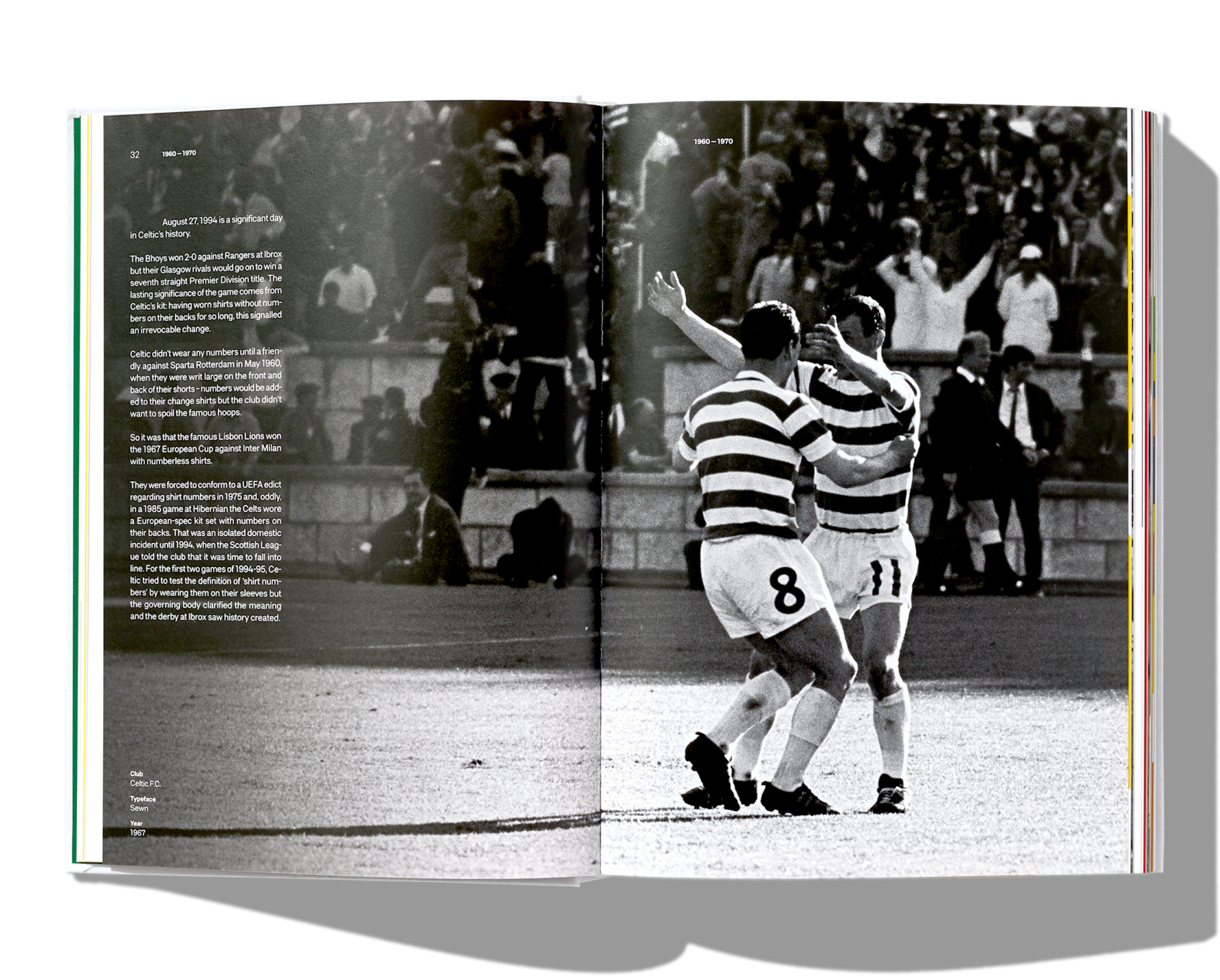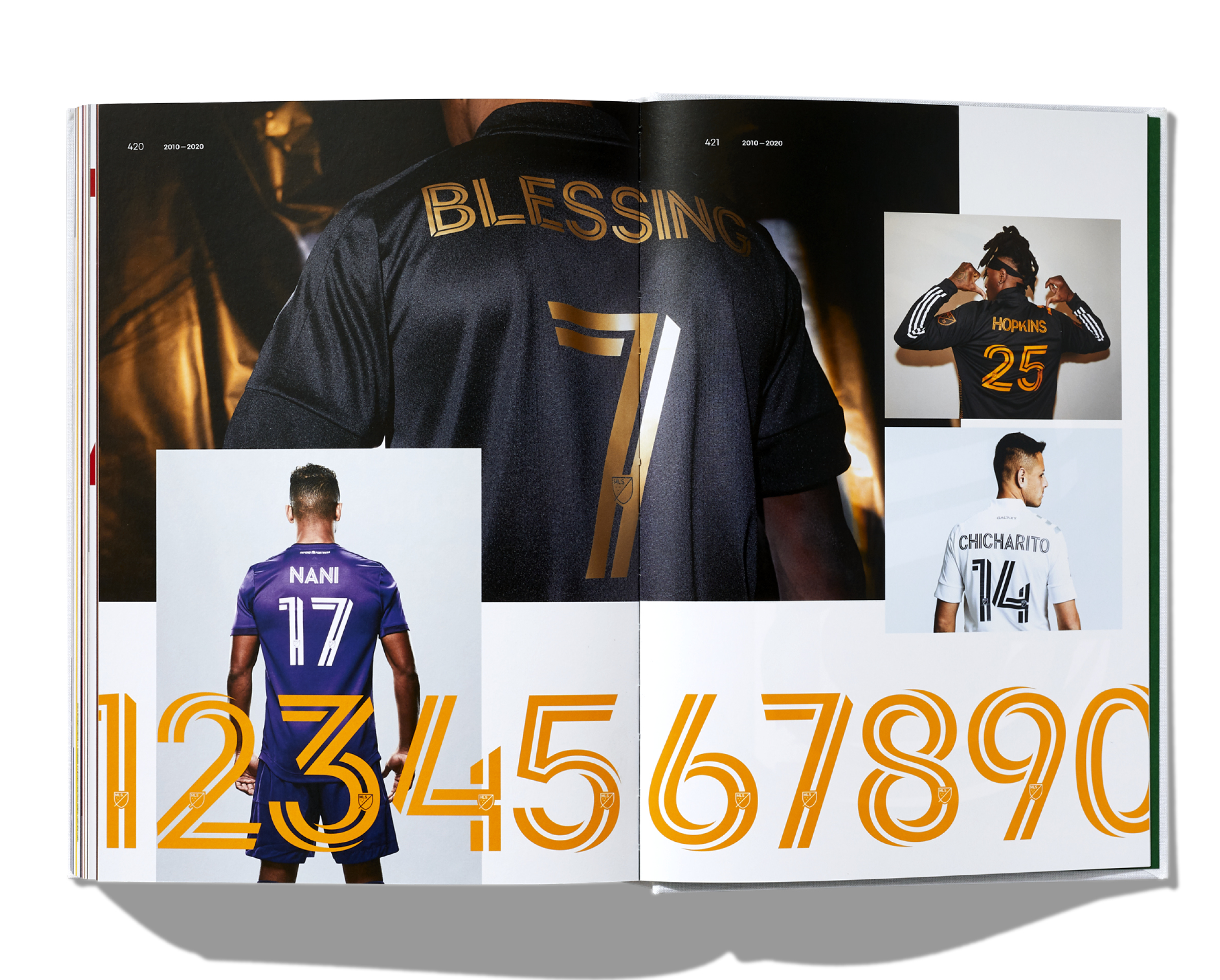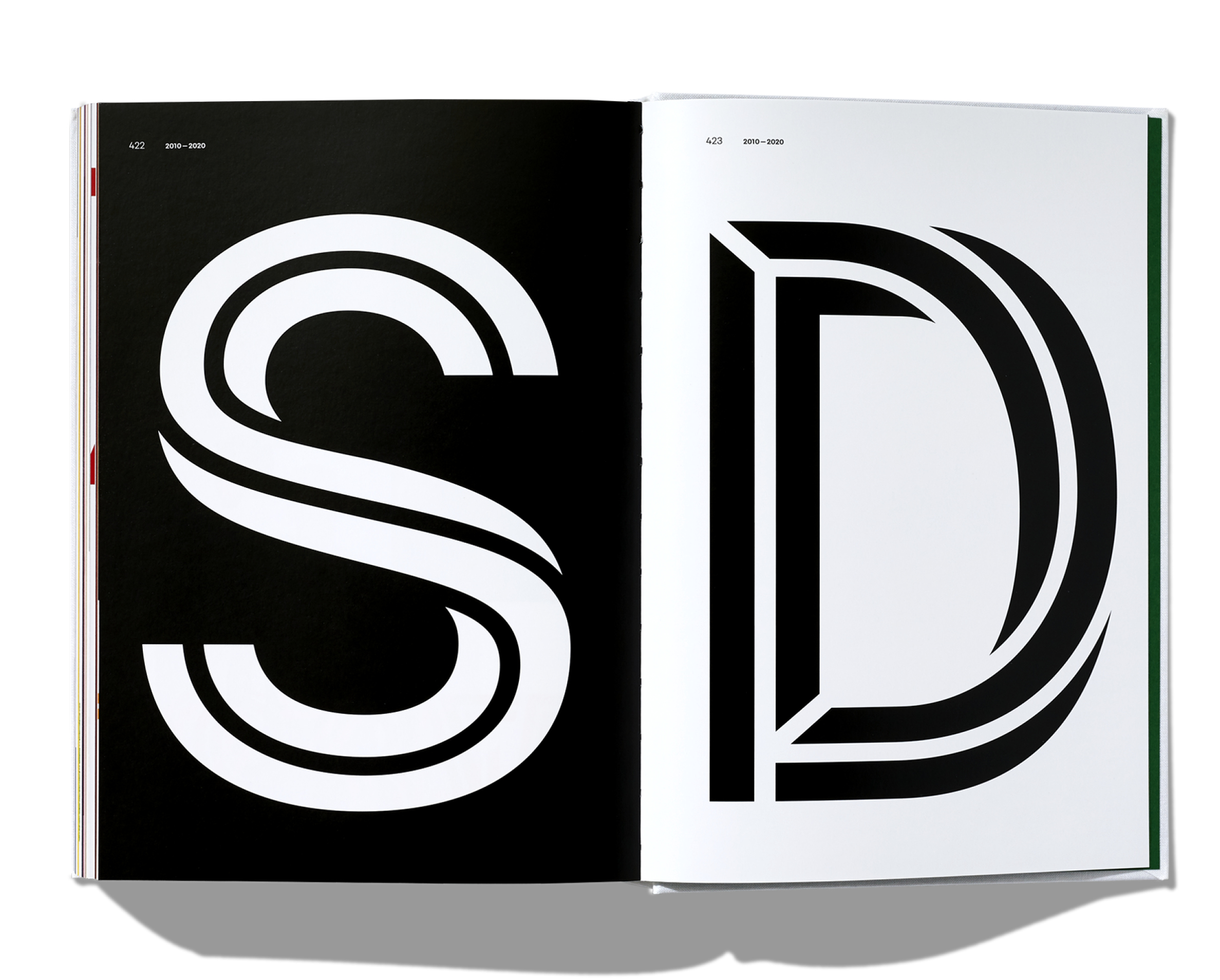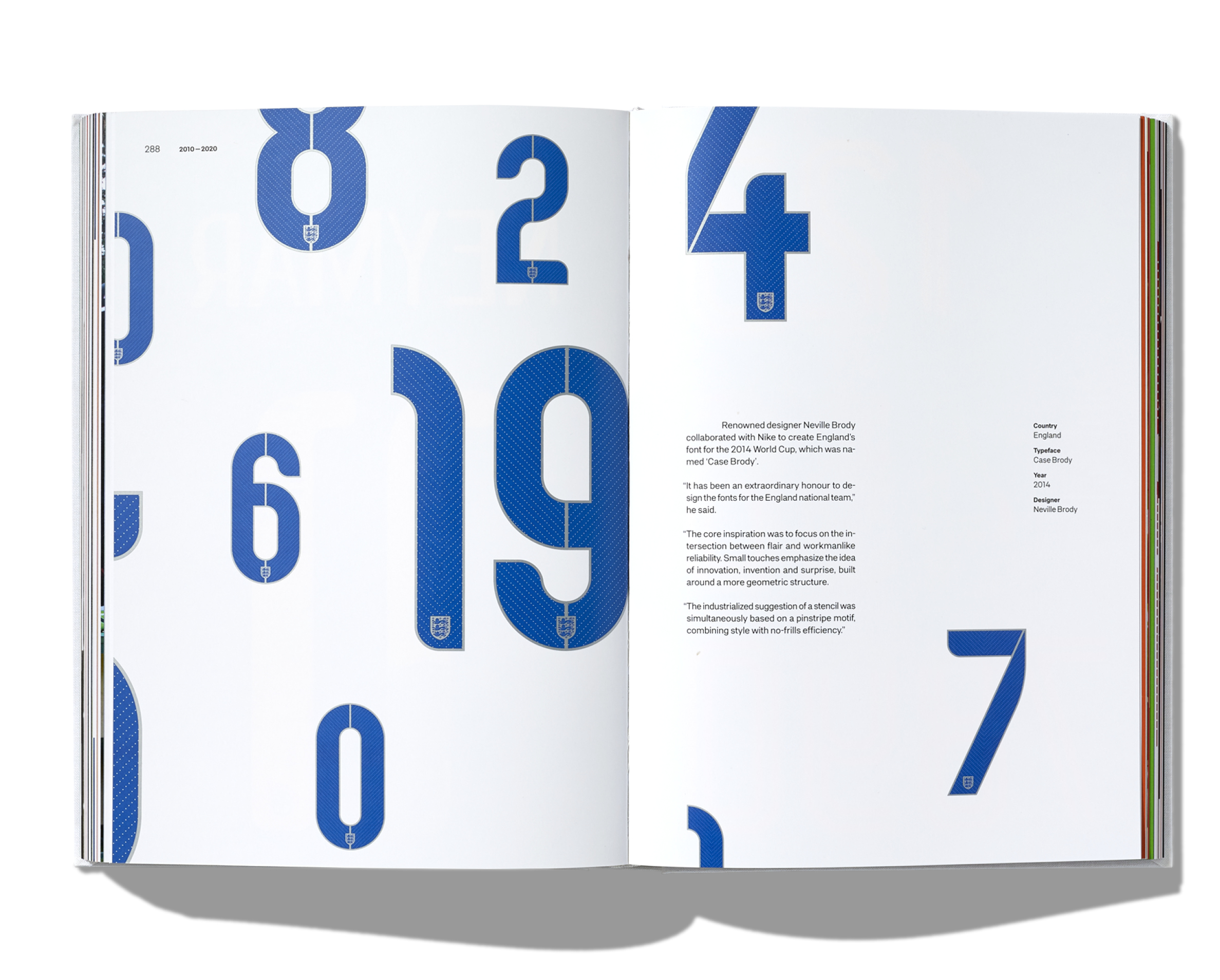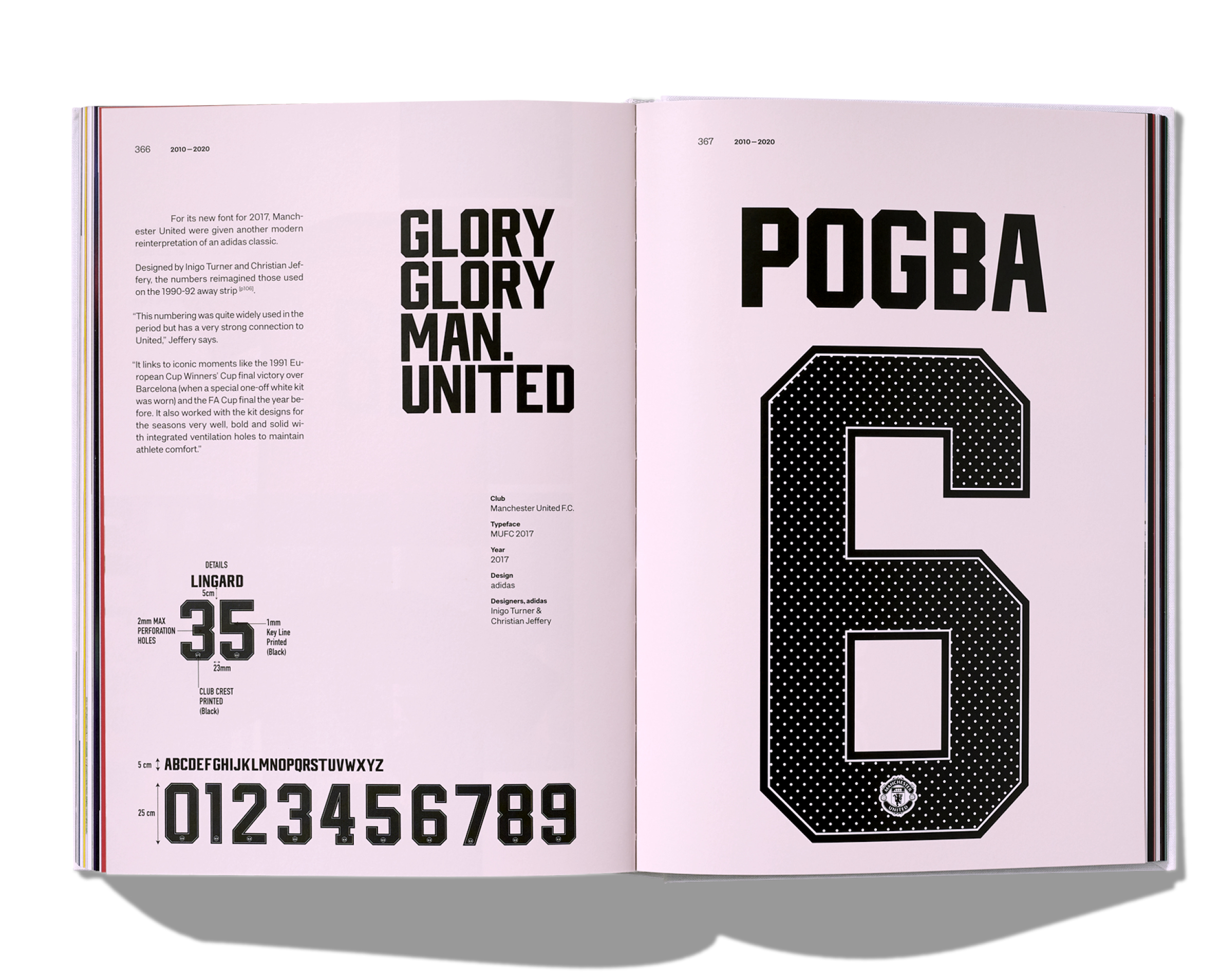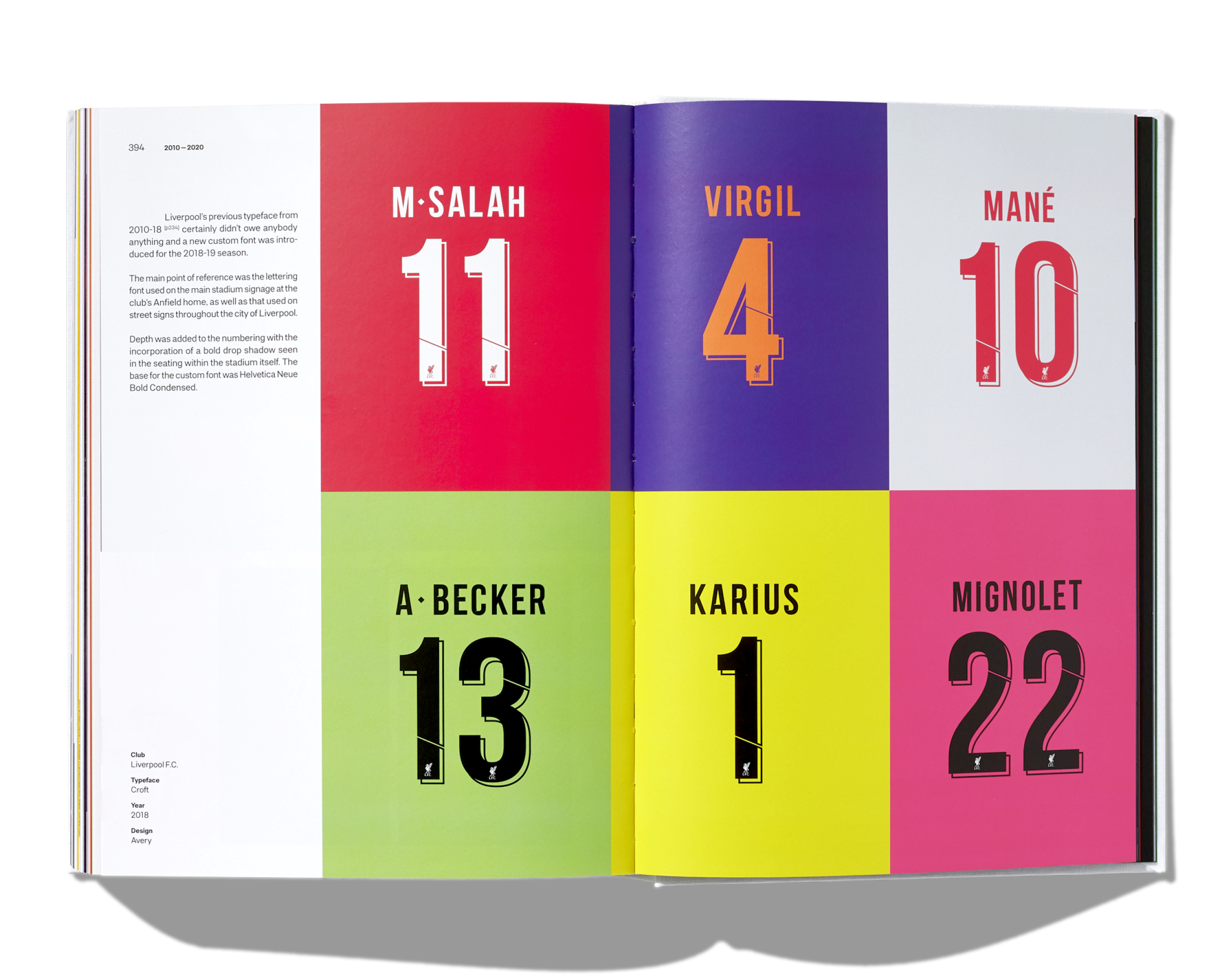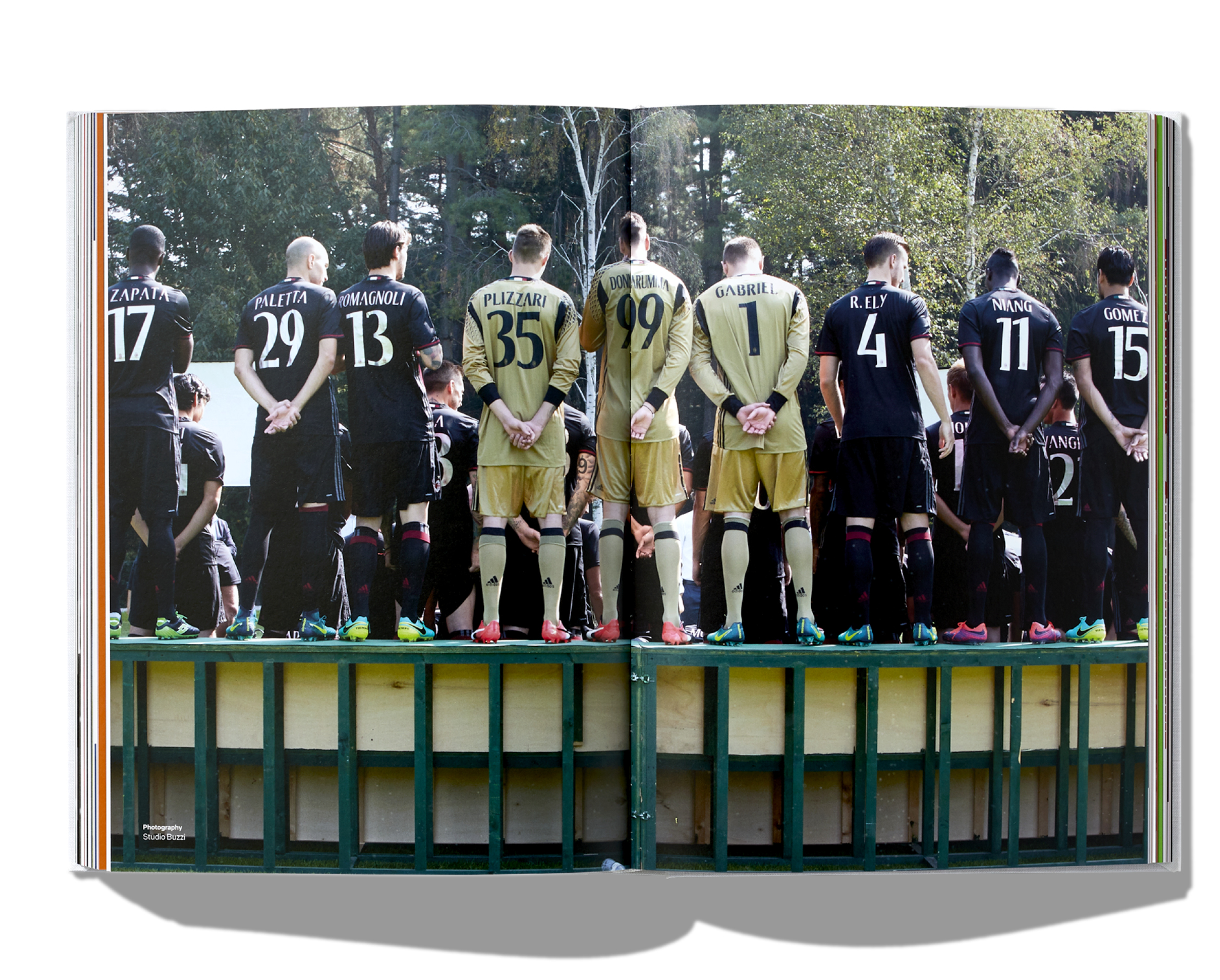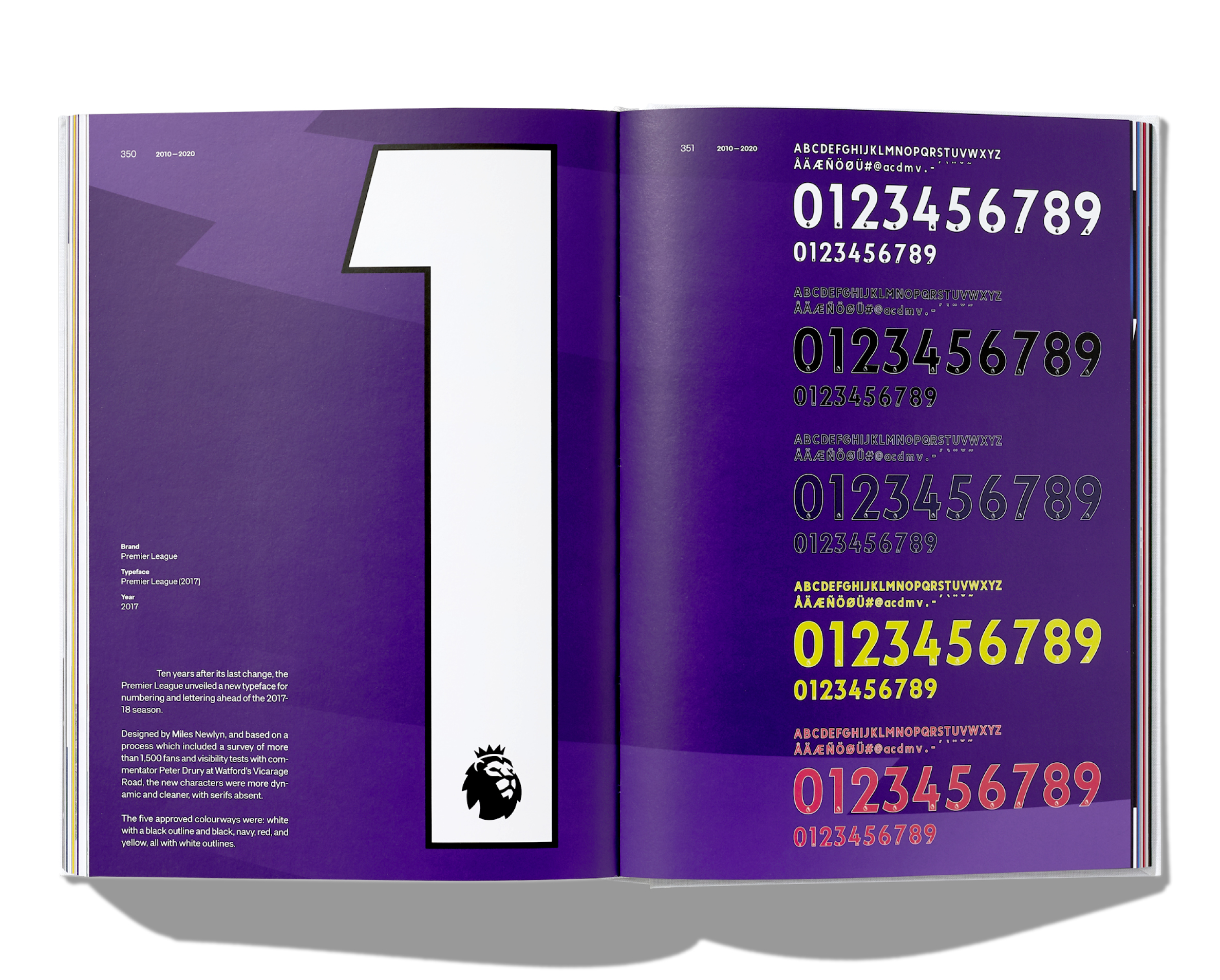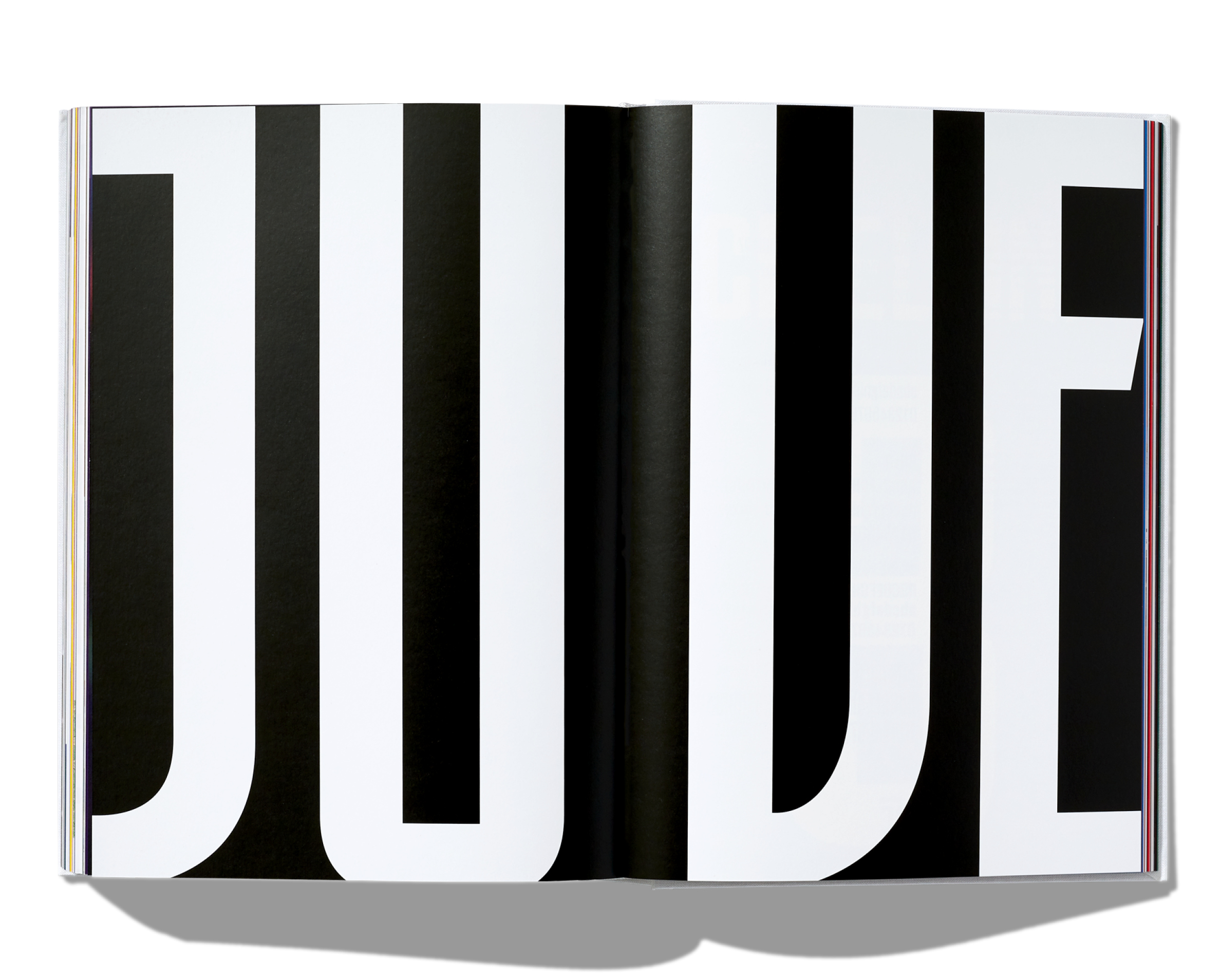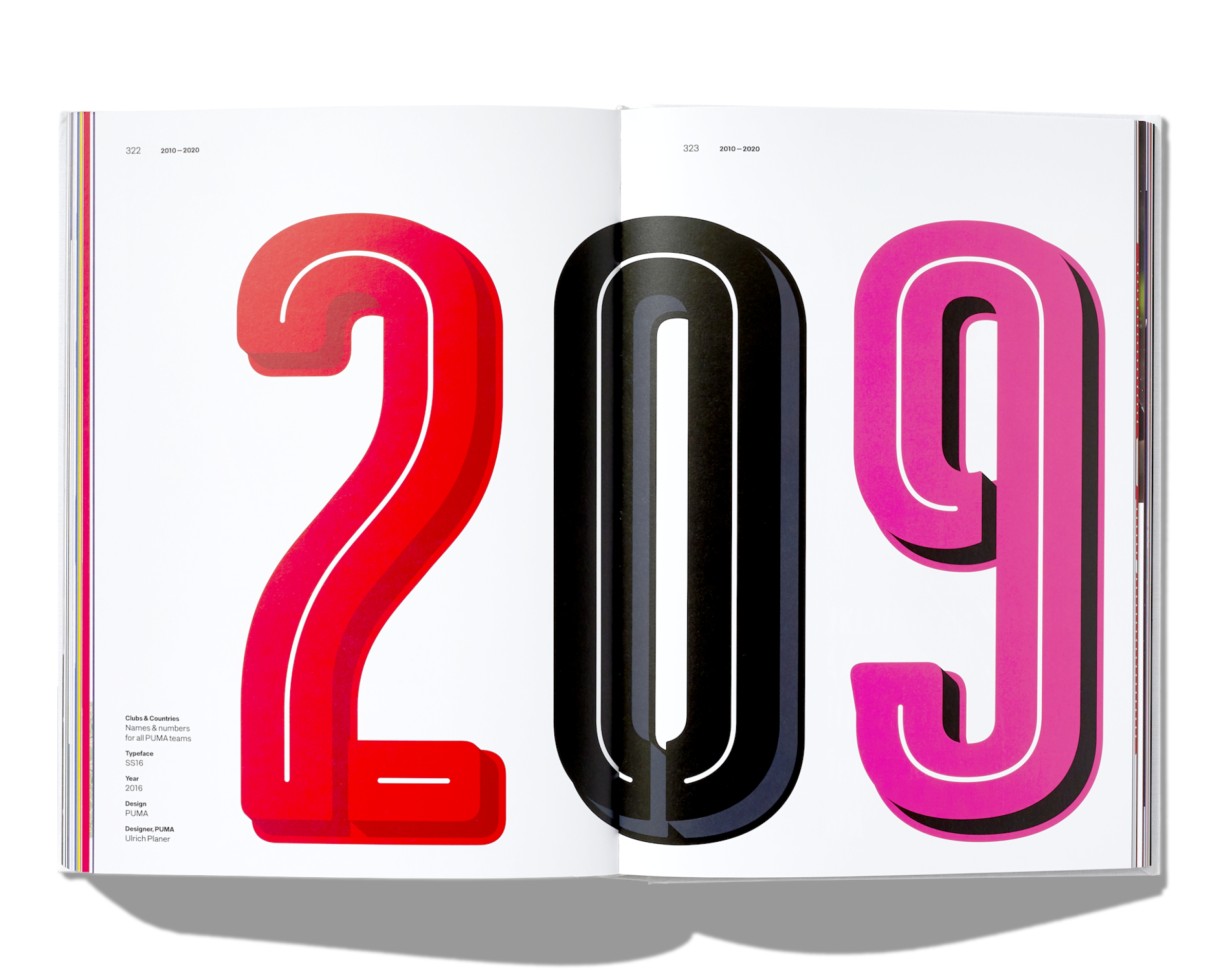
Football Type 2
Football Type 2 is the sequel and revised edition to the award-winning book Football Type — a book celebrating the rich history of football and typography. From a patchy beginning as strictly identificatory aids, shirt numbers have grown in significance, with players gaining such attachment to the digits on their backs that they become part of their individual brands.
The business of designing fonts reflects that and Football Type 2 is a celebration of that creativity as well as the historic stories behind the numbers.